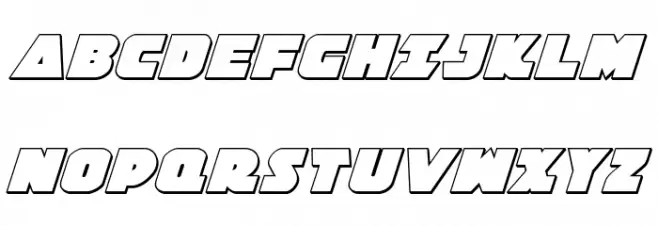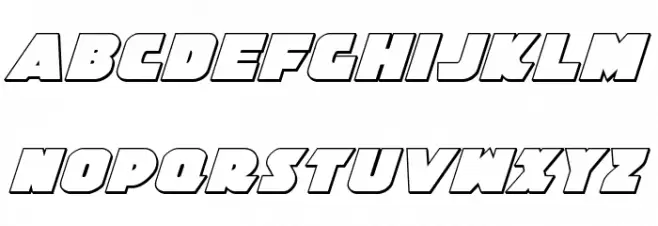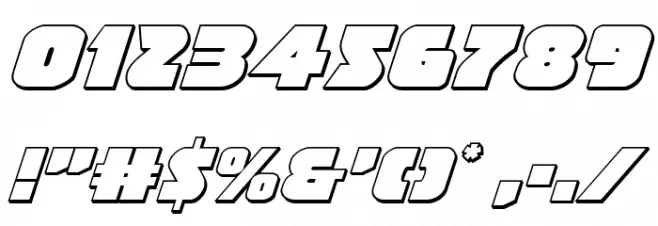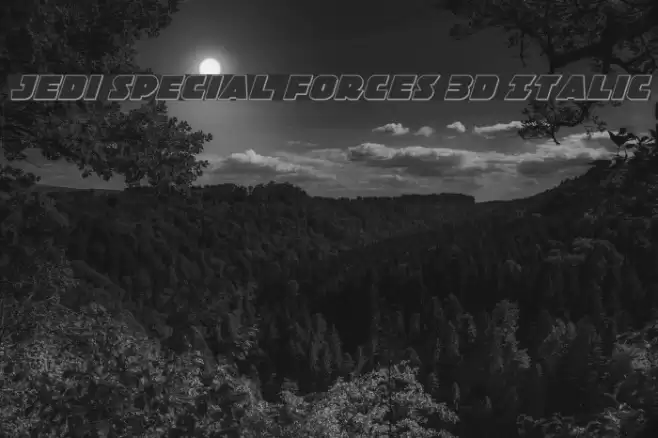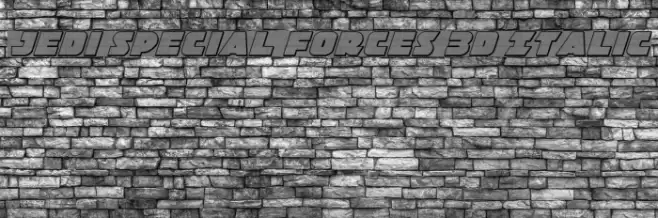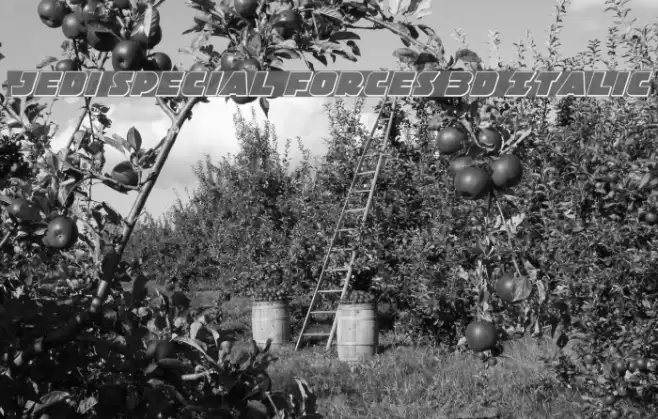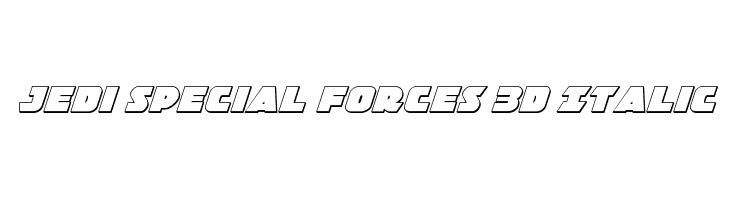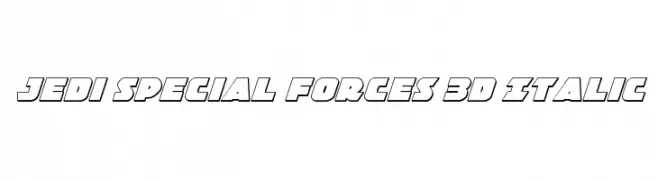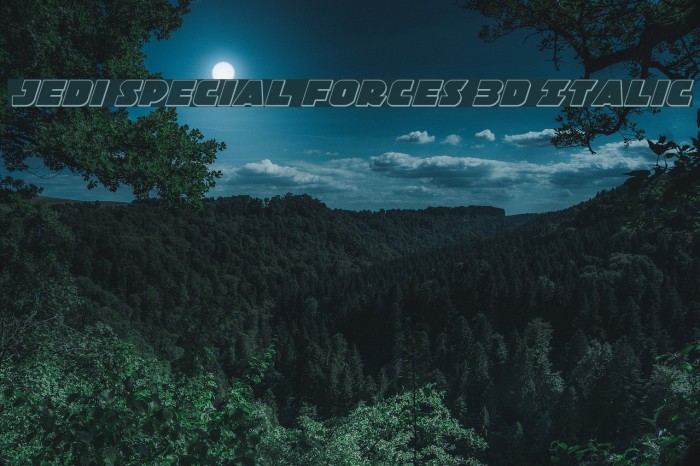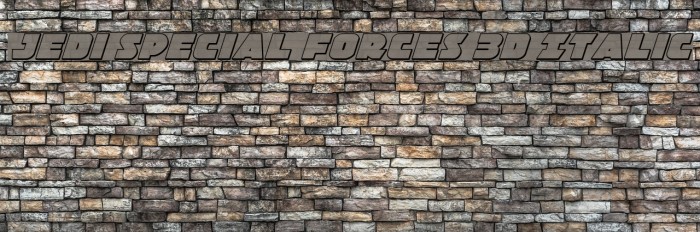
Jedi Special Forces 3D Italic
This font features a bold, futuristic design with a 3D effect that gives it a dynamic and striking appearance. The characters are italicized, adding a sense of motion and speed. The geometric shapes and sharp angles contribute to its modern and edgy style, making it ideal for projects that require a strong visual impact. The uppercase letters are particularly prominent, with a consistent thickness that enhances readability. The numbers and special characters maintain the same bold and angular aesthetic, ensuring a cohesive look across all text elements.
A bold, 3D italic font with a futuristic and dynamic style.
- Proposed Projects: Ideal for sci-fi themed posters, video game titles, and branding for tech companies.
- Overall Style: Futuristic